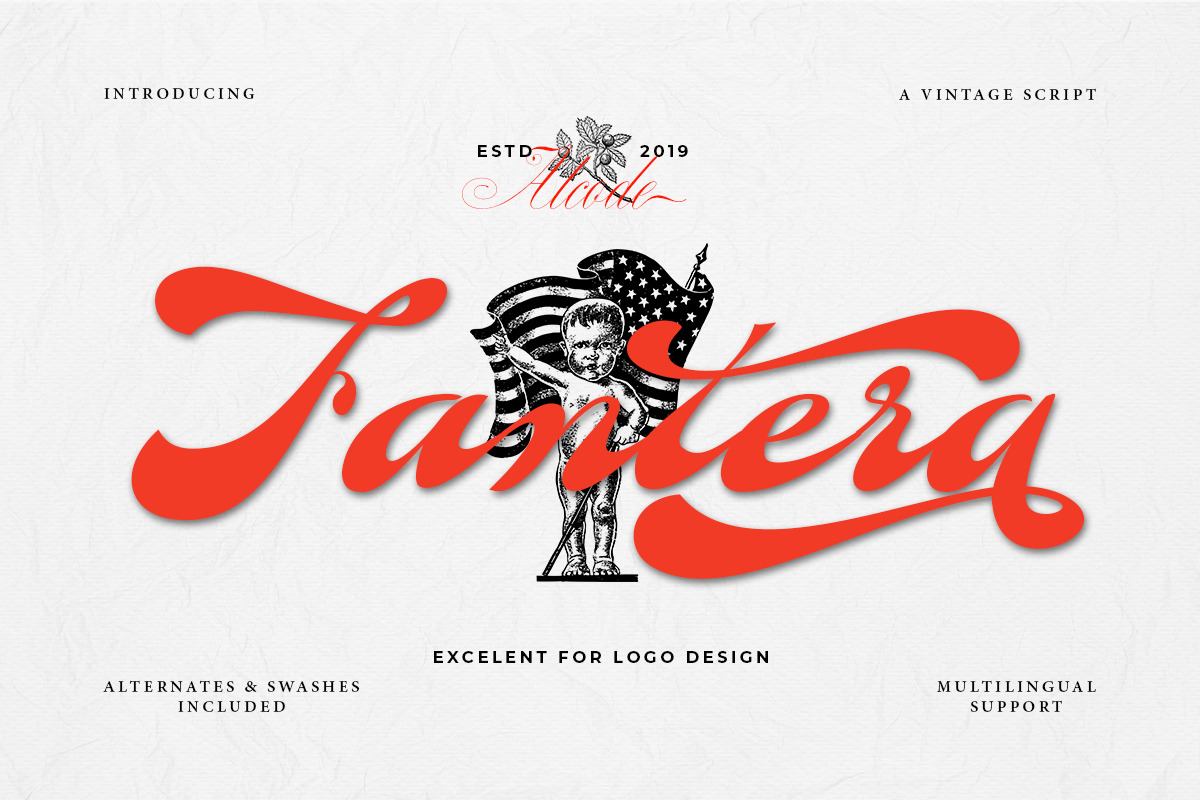
Fantera Font Free Download is a bold and sporty script typeface designed with dynamic energy and confident strokes. Perfect for logos, athletic branding, merchandise, posters, and streetwear designs, Fantera blends classic script style with a modern, aggressive edge that makes it stand out in any context.
Its swashes, alternates, and brush-style flow give your text a custom, handcrafted feel—ideal for projects that need to convey strength, movement, and personality. Whether you're designing for a sports team, apparel line, or bold personal brand, Fantera brings impact and flair.